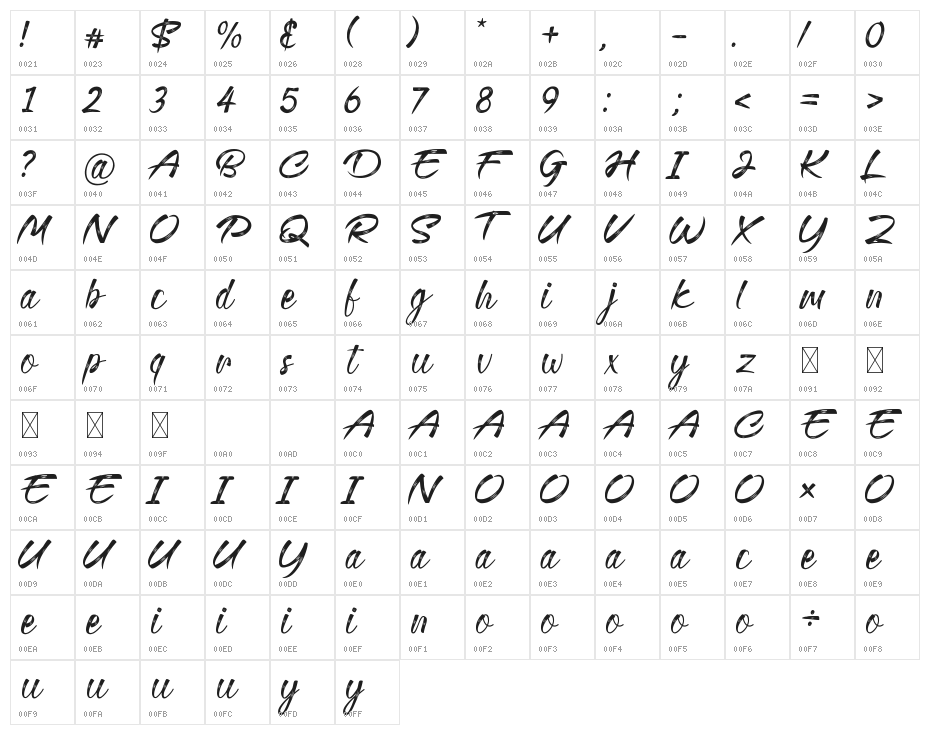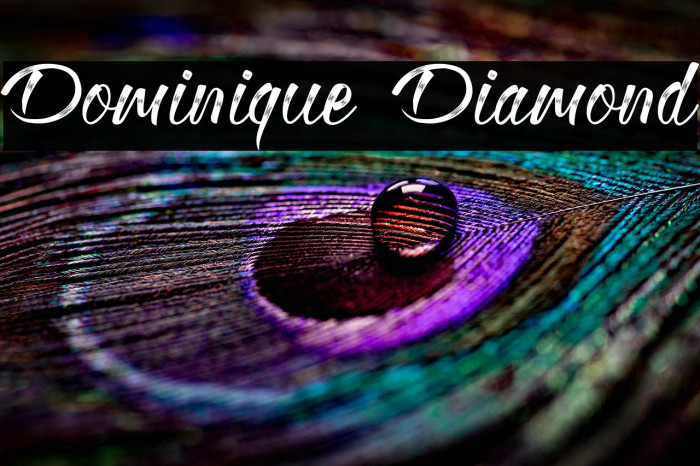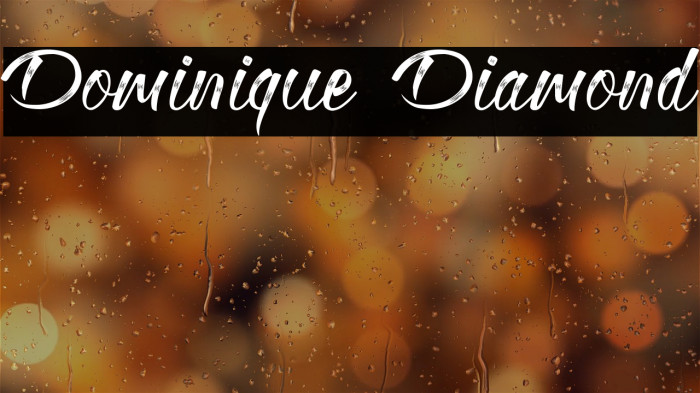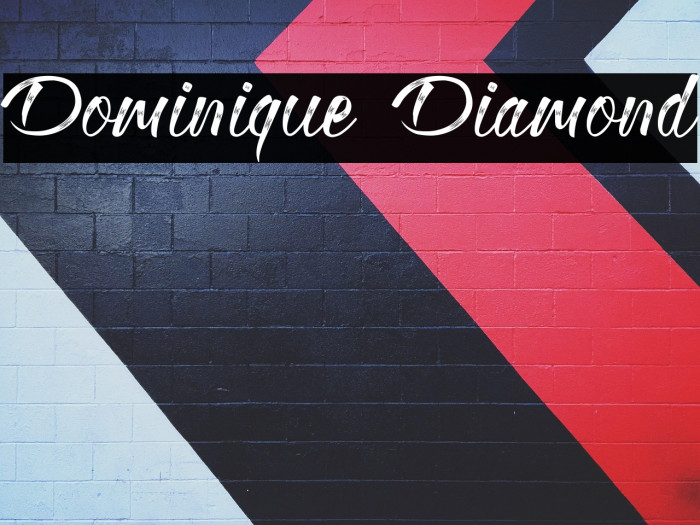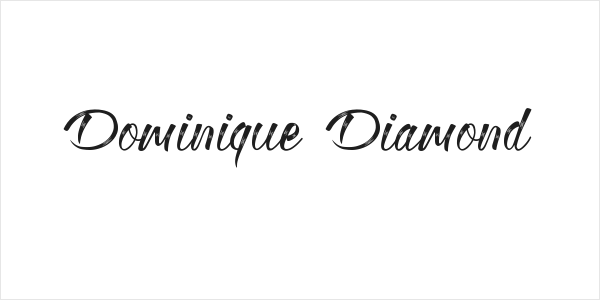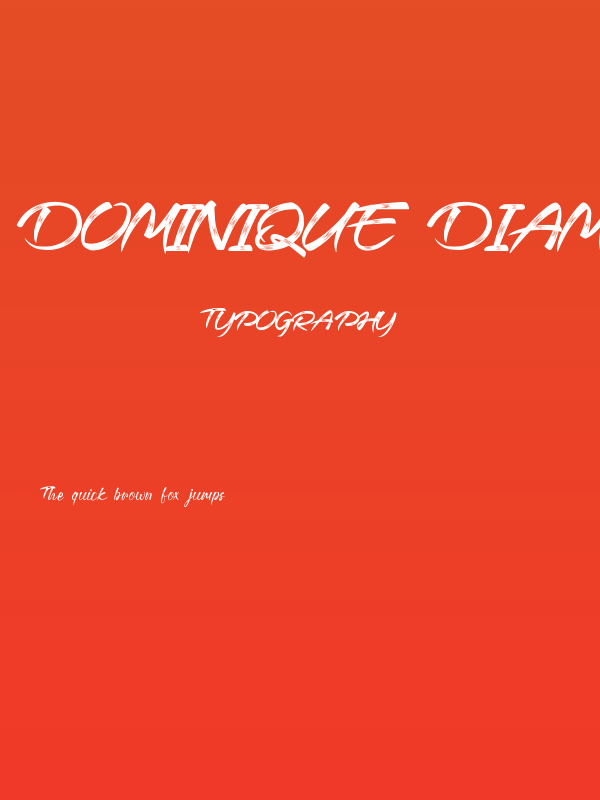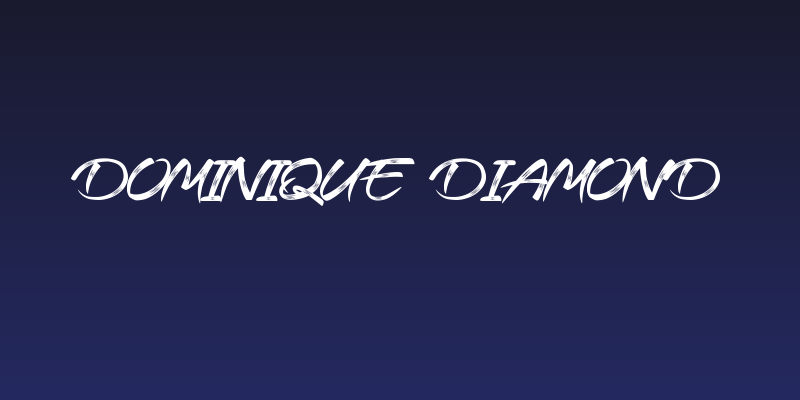
Dominique Diamond Font
Dominique Diamond Description
This font features a dynamic and expressive script style, characterized by its bold and sweeping strokes. The letters are interconnected, creating a fluid and continuous flow that mimics natural handwriting. The uppercase letters maintain a consistent height, while the lowercase letters exhibit a playful bounce, adding to the font's energetic feel. The numerals and special characters are crafted with the same attention to detail, ensuring a cohesive look across all glyphs. The overall design is both modern and artistic, making it suitable for projects that require a personal touch.
Use CaseLogos, Headlines, Invitations
Proposed ProjectsIdeal for branding, invitations, greeting cards, and artistic projects that require a personal and dynamic touch.